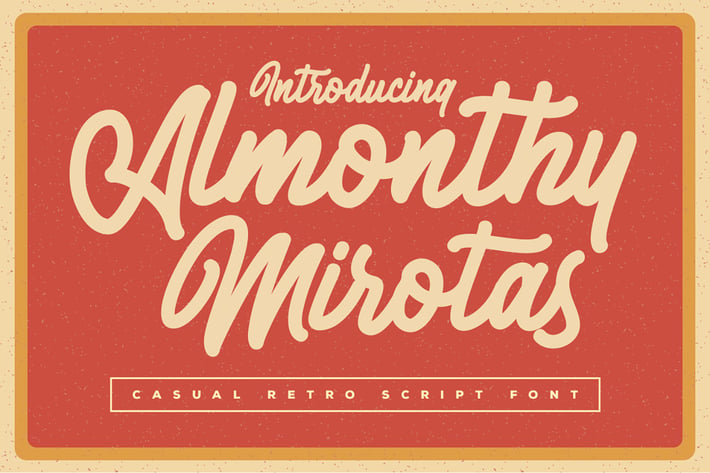
Almonthy Mirotas - Retro Script Font
Almonthy Mirotas is a stunning handwritten font with retro or vintage style. Use it to add a classic touch to any design project!
This font is suitable to use as a logotype, product designs, label, watermark, social media posts, apparel, invitation, signboard, sports club, motor/car, special events, or anything.